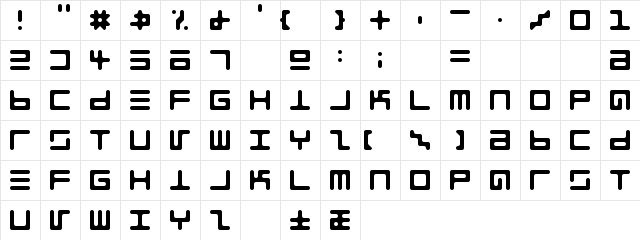
Epps Evans Round
Design Context for Epps Evans Typeface
Epps Evans softens its letterforms with rounded terminals, giving it an approachable, friendly quality that works well in consumer-facing and digital contexts.
Well-suited to UI design, mobile interfaces, and any brand that wants approachability without sacrificing clarity.
Font Pairing: Pairs well with a rounded or humanist sans for body copy, maintaining the friendly tone without relying on Epps Evans to carry extended reading.
Pro Tip: Use Epps Evans for UI elements, app interfaces, and anywhere a friendly, approachable tone needs to be maintained without sacrificing clarity.